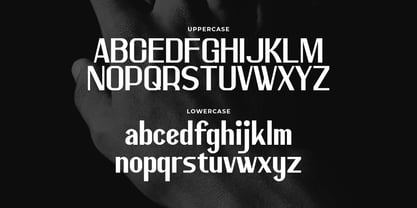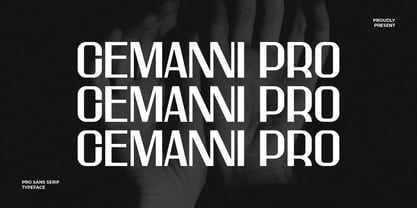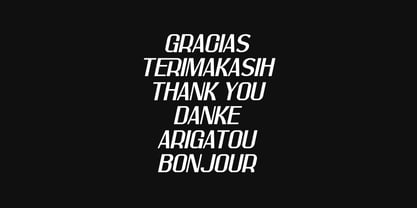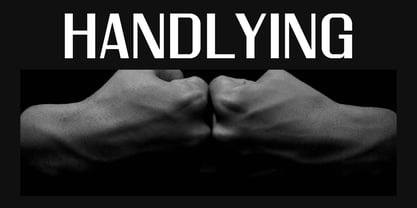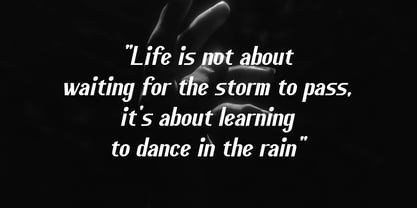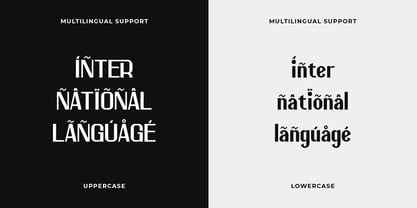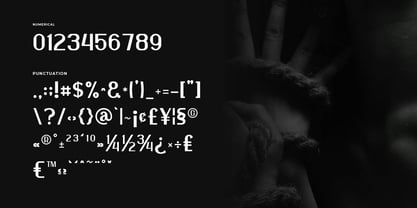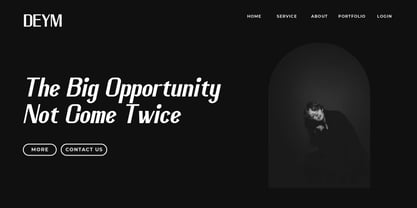
Cemanni Pro
por Artiveko
La familia tipográfica Cemanni Pro fue diseñada por Iwan Alwan y publicada por Artiveko. Cemanni Pro contiene 2 estilos y opciones de paquete familiar. Más información sobre esta familia
Cemmani Pro is a robust and confident modern sans serif typeface designed for impactful design. Featuring a bold structure, clean geometry, and smooth curves, Cemmani Pro ensures high readability while maintaining a powerful visual presence. Each letterform is meticulously crafted to appear sharp, professional, and contemporary, making it ideal for logos, branding, posters, headlines, magazines, social media, and digital products. This Pro version includes refined uppercase and lowercase characters with balanced proportions and solid weight, making it perfect for tech brands, fashion visuals, editorial layouts, and modern business identities. Cemmani Pro empowers your typography with a bold voice, all while preserving clarity and style. It’s not just a font — it’s a declaration of modern confidence and visual authority.
Diseñadores: Iwan Alwan
Fundición: Artiveko
Artiveko is a font design team based in Indonesia, comprised of several talented font designers who commenced their careers in the font design industry in 2020. With a dedicated focus on crafting fonts, the team members bring their collective expertise and passion to every project they undertake. Situated in Indonesia, Artiveko draws inspiration from the vibrant cultural landscape of the region, infusing their creations with unique flavors and aesthetics.The team's font collection encompasses a diverse range of styles, including serif, sans serif, handwritten, and script typefaces. Each typeface is meticulously crafted to meet the demands of modern design while offering versatility and functionality across various applications. Whether it's the classic elegance of serif fonts, the contemporary appeal of sans serif designs, the personal touch of handwritten scripts, or the expressive flourishes of script fonts, Artiveko ensures that every font reflects their dedication to quality and innovation.Artiveko's fonts have garnered recognition and acclaim, with their works being featured on prominent social media platforms like Creative Market. Through these platforms, the team has been able to connect with a global audience of designers and typographers, further amplifying their reach and influence in the industry. Their fonts are celebrated for their impeccable craftsmanship, attention to detail, and ability to elevate design projects with style and sophistication.As Artiveko continues to evolve and expand its font collection, the team remains committed to pushing the boundaries of typography and setting new standards of excellence. With a relentless focus on creativity, innovation, and collaboration, Artiveko strives to inspire and empower designers around the world with their distinctive and versatile font designs.